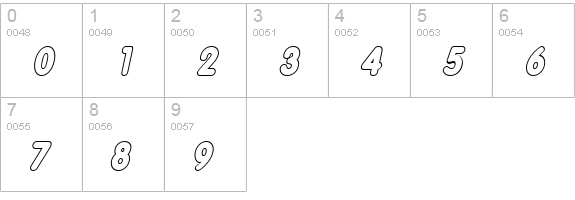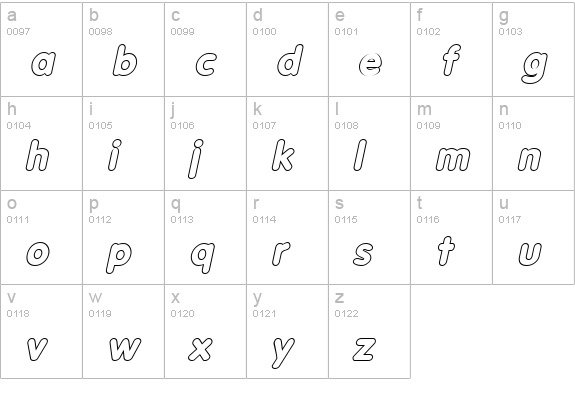
VagabondOutline Italic Font Details
VagabondOutline Italic is a distinctive, italic variant in the VagabondOutline typeface family \xE2\x80\x94 well suited to design and typography projects.
VagabondOutline Italic font is a captivating and adventurous typeface that adds a touch of wanderlust to any design project. Its unique and stylish letterforms are meticulously crafted with a hand-drawn feel, creating a sense of free-spiritedness and artistic expression. This font embodies the essence of a vagabond, someone who seeks adventure and embraces the unknown. The italicized nature of VagabondOutline Italic font adds a dynamic and energetic quality, perfect for conveying movement and excitement in your designs. VagabondOutline Italic font is not only visually stunning but also highly versatile. It can be used for a wide range of design projects, including logos, branding, posters, headlines, and more. Its bold and distinctive look will make your designs stand out from the crowd and leave a lasting impression. One of the best things about VagabondOutline Italic font is that it is freely available to download at FontsMarket.com. This means that you can easily access this incredible font and incorporate it into your designs without any hassle or cost. Whether you are a professional designer or a hobbyist, this font is the perfect addition to your font collection. So, if you are looking to add a touch of adventure and creativity to your designs, look no further than VagabondOutline Italic font. Download it free at FontsMarket.com and let your imagination run wild with the possibilities this font has to offer.